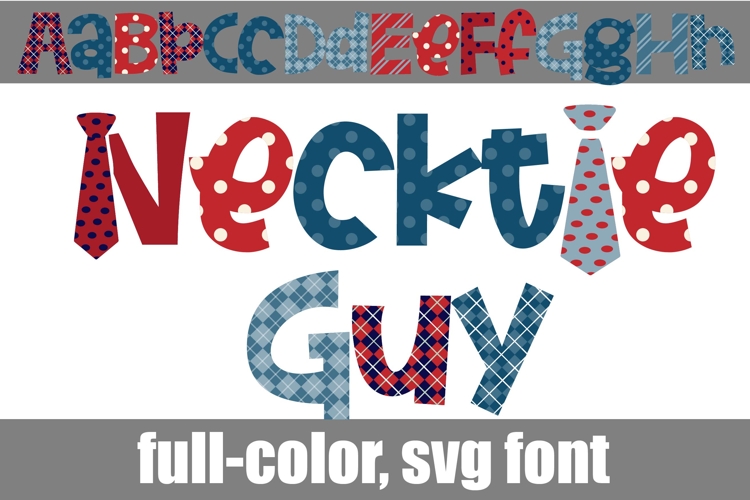
Necktie Guy Too Color Font
This full-color, serif font features letters that look like neckties. There is a full alt case of both upper and lowercase letters in an additional color that you can access through your system's character map.